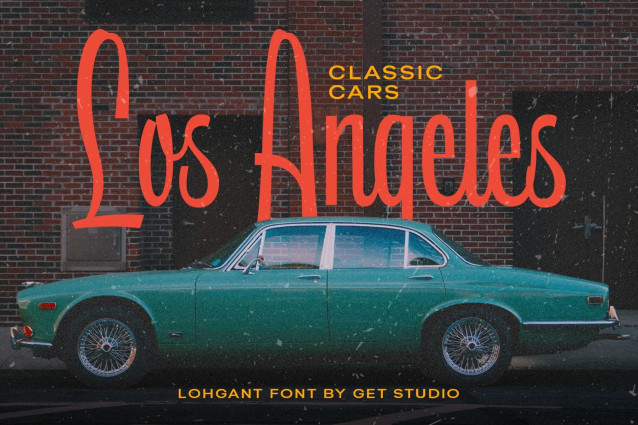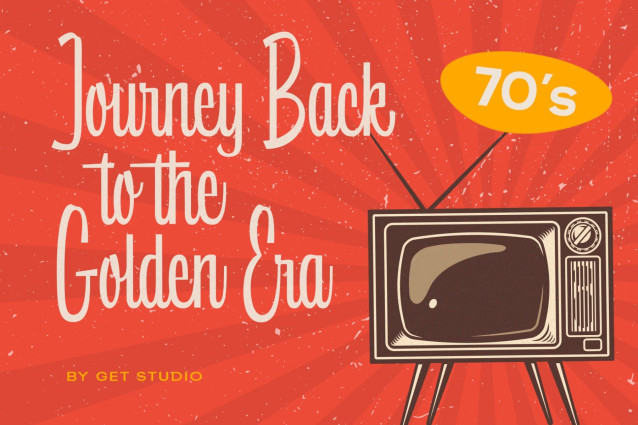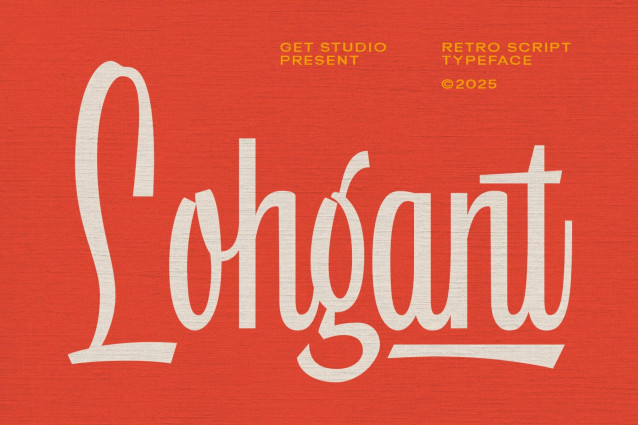
Lohgant Script Font
Lohgant Script is an upright, clean script font with a charming retro flair. Its smooth curves and vintage-inspired letterforms bring a timeless elegance to logos, packaging, and display designs.
Lohgant is a tall, condensed retro script display font with a hand-drawn feel. Its elongated letterforms and upright posture evoke mid-century signage, classic car culture, and vintage television graphics. The design balances casual, brush-like curves with a structured, condensed rhythm that keeps text compact and impactful.
Natural fits include cafe branding, retro event posters, travel signage, classic car show graphics, and food packaging. Use it for headlines, logos, and merchandise designs where a warm, nostalgic mid-century aesthetic is needed.